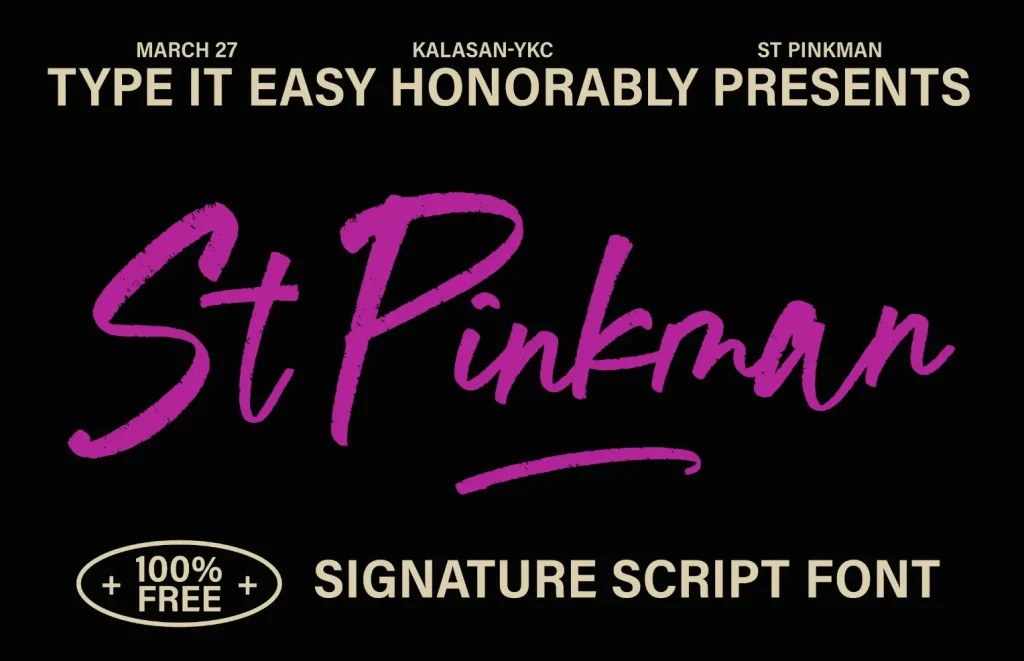
ST Pinkman is a signature script font with a textured, handcrafted appearance. The letterforms show natural variation and a raw quality that mimics ink on paper.
Features
- Hand-drawn signature style with organic texture
- Complete uppercase and lowercase character set
- Natural ink texture for an authentic appearance